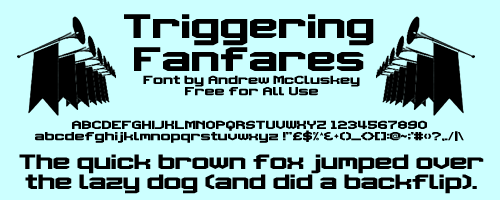
Preview and download Triggering Fanfares Font. Created by NALGames in Techno Square styles with 100% Free license.
Bold, wide, and easy to read. Free for all use. Notification on use, commercial or otherwise, is not required, but I genuinely love it when you do - so please consider quickly dropping a line! I don't bite, and I won't refuse you permission to use the font regardless of how it's being used. Credit is much of the same - not required, but it makes me smile when people do :) You're also welcome to donate if you like/use the font, but again, optional! For queries, feedback or anything of the sort, comment on the font or you can email me at nal[at]nalgames.com. Thanks! |